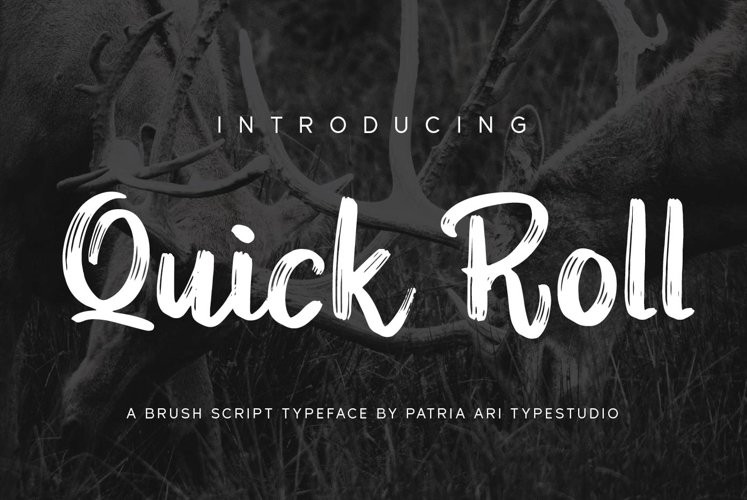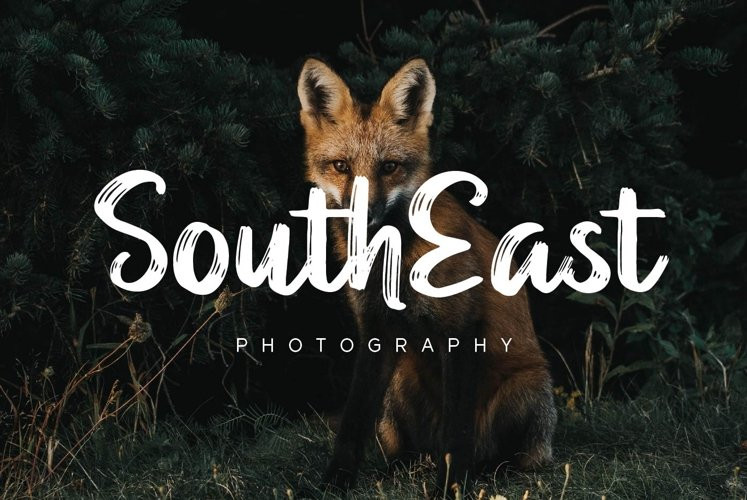
Quick Roll Font
Quick Roll FontQuick Roll is a brush script typeface with stunning swashes.
Quick Roll is perfect for branding projects, logo, social media posts, advertisements, product packaging, product designs, label, and any projects that you work on.